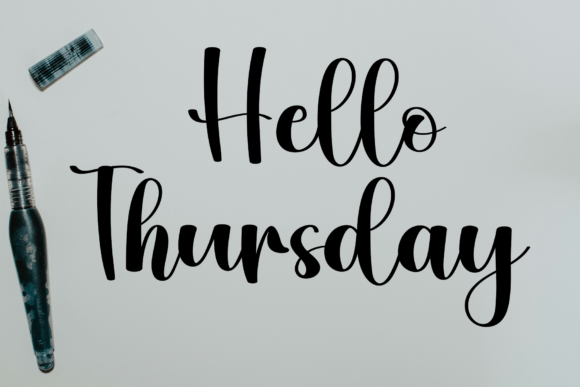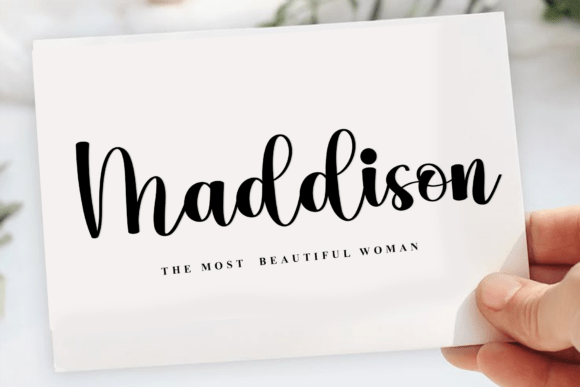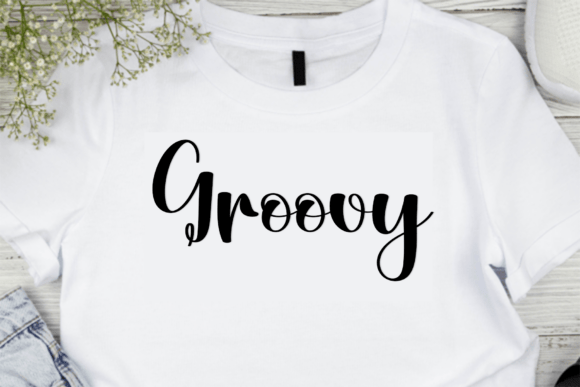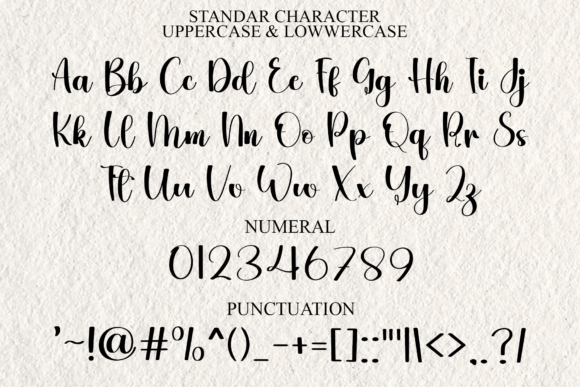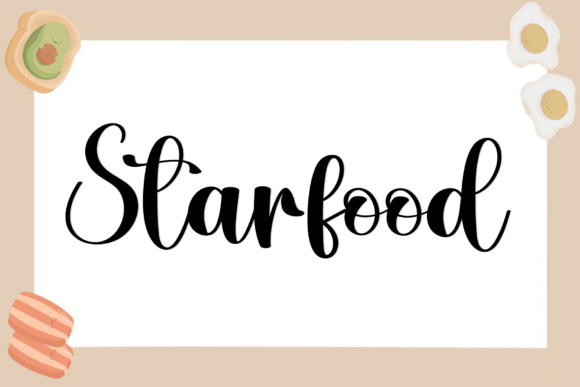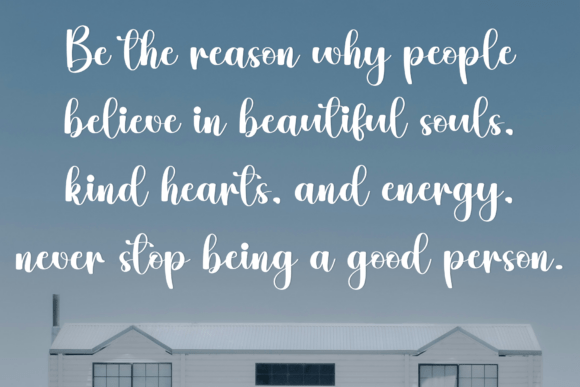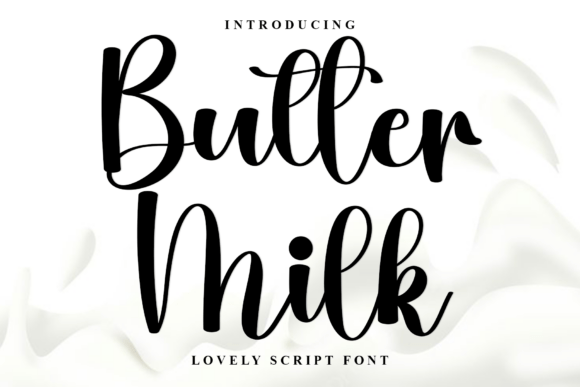
Introducing Butter Milk Font: A Festive and Merry Typeface for the Holiday Season
Are you looking for a font that captures the essence of the holiday season? Do you want to add a touch of magic to your designs and make them stand out? Look no further than Butter Milk Font, a festive and merry typeface that’s perfect for greeting cards, gift tags, and holiday-themed projects.
A Decorative and Whimsical Font
Butter Milk Font is a beautifully designed typeface that exudes a sense of joy and festivity. Its decorative elements and whimsical flair make it an ideal choice for designers and crafters who want to add a touch of enchantment to their work. With its unique and eye-catching design, this font is sure to make your projects shine.
Whether you’re designing greeting cards, gift tags, or holiday-themed projects, Butter Milk Font is the perfect choice. Its festive and merry design makes it ideal for a wide range of applications, from Christmas cards to Halloween decorations. With this font, you can create stunning and eye-catching designs that will leave a lasting impression on your audience.
One of the best things about Butter Milk Font is that it’s PUA encoded, which means you can access all of the amazing glyphs and ligatures with ease. This makes it easy to use the font in your designs, even if you’re not a professional typographer. With PUA encoding, you can simply access the glyphs and ligatures you need and use them in your projects.
Bring a Cheerful and Nostalgic Ambiance to Your Words
Butter Milk Font brings a cheerful and nostalgic ambiance to your words, making it perfect for designers and crafters who want to create a sense of warmth and coziness in their designs. With its whimsical and decorative design, this font is sure to evoke feelings of joy and happiness in your audience. Whether you’re designing for the holiday season or just want to add a touch of whimsy to your work, Butter Milk Font is the perfect choice.
Let Your Typography Shine
With Butter Milk Font, you can let your typography shine and add a touch of magic to your designs. Whether you’re a professional designer or a crafter, this font is sure to inspire you to create something truly special. So why settle for a boring and ordinary font when you can use Butter Milk Font to make your designs stand out?
Key Features of Butter Milk Font
- Festive and merry typeface perfect for the holiday season
- Decorative elements and whimsical flair add a touch of enchantment to your designs
- Perfect for greeting cards, gift tags, and holiday-themed projects
- Bring a cheerful and nostalgic ambiance to your words
Get Ready to Create Something Truly Special
With Butter Milk Font, you’re ready to create something truly special. Whether you’re designing for the holiday season or just want to add a touch of whimsy to your work, this font is sure to inspire you to create something amazing. So go ahead, get creative, and let Butter Milk Font bring a touch of magic to your designs.